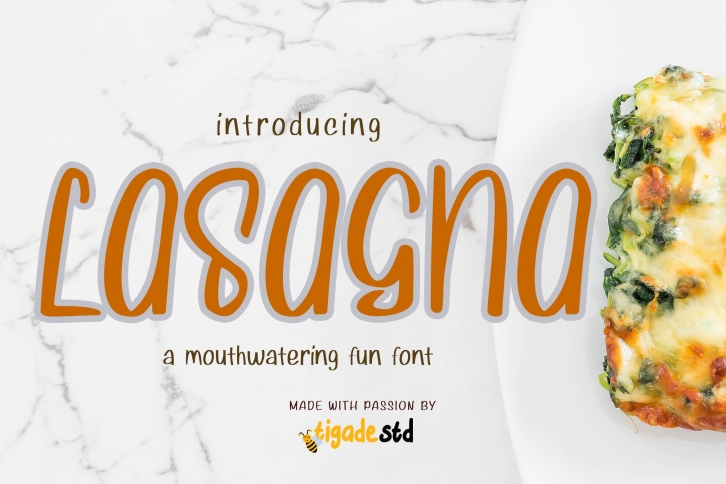
Lasagna is a trendy and unique font with an authentic style. It was designed by Tigade Std and it's a great choice for creative people who need such a font. It was released on November 18, 2020 and the file size is 15.4 MB. Lasagna will add an organic vibe to any design idea!